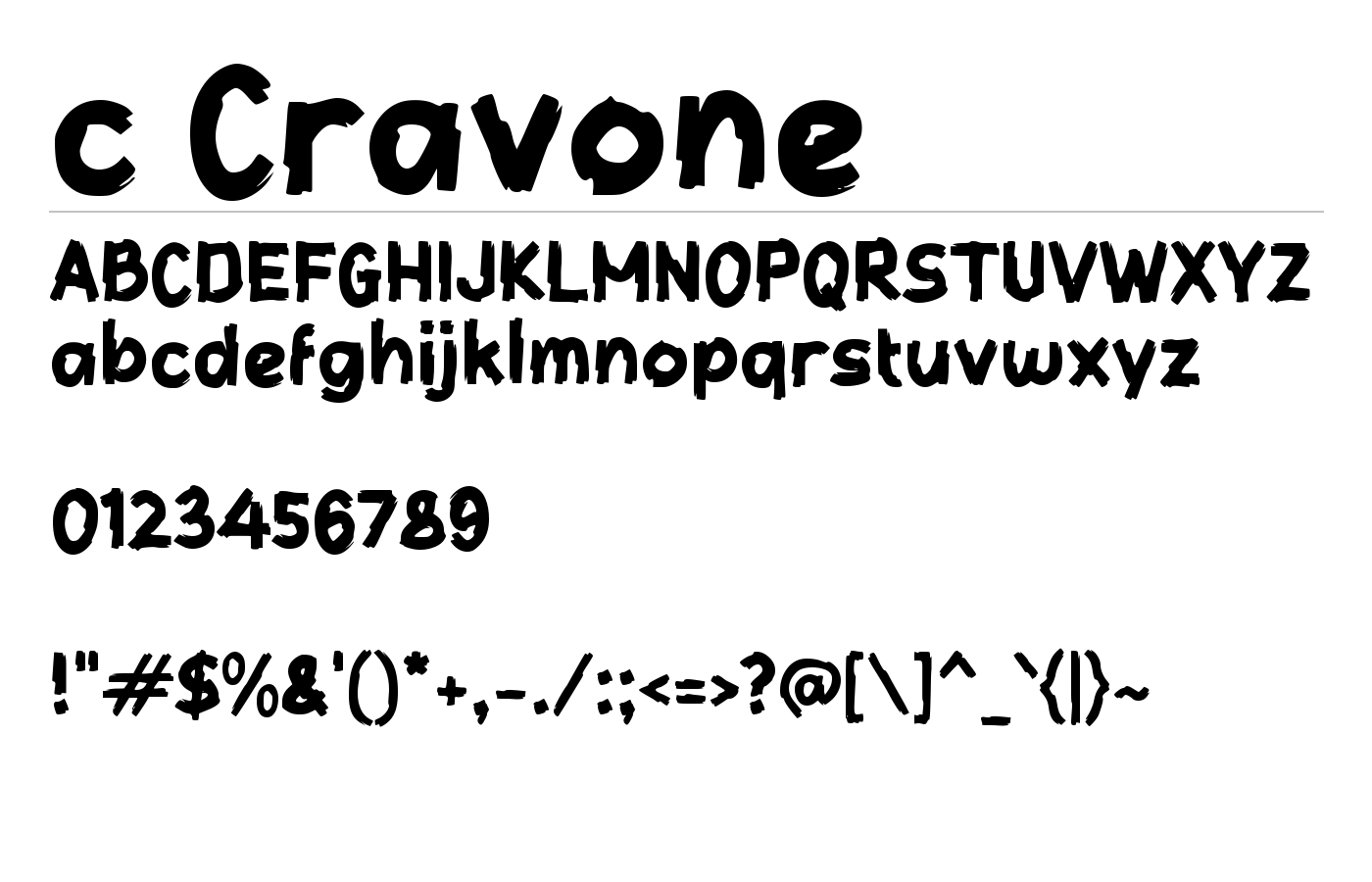
Cravone is a bold, playful sans serif font with uneven, hand-drawn strokes that give it a lively, informal feel. Its quirky letterforms and moderate x-height make it stand out in headlines, logos, and creative projects where a friendly, approachable vibe is desired. Perfect for designs that want to convey personality and originality without sacrificing legibility.
c Cravone Font
About c Cravone Font